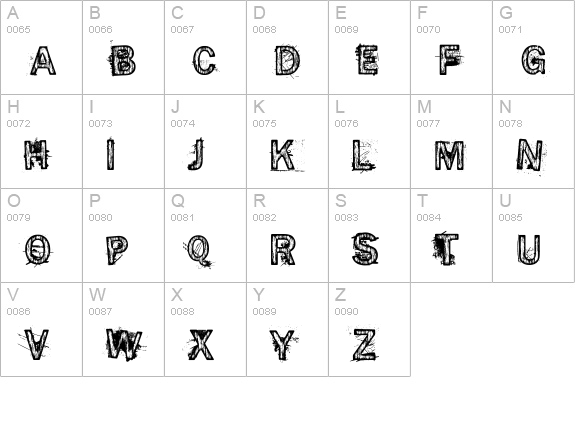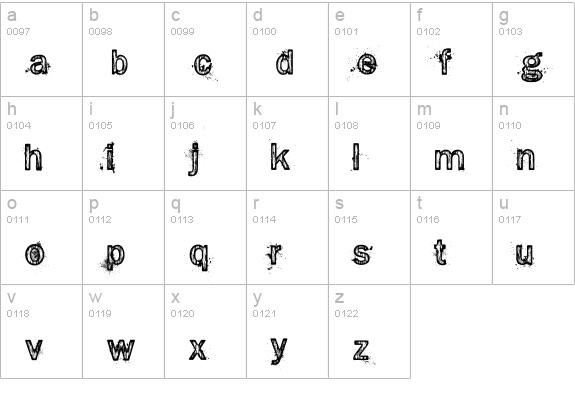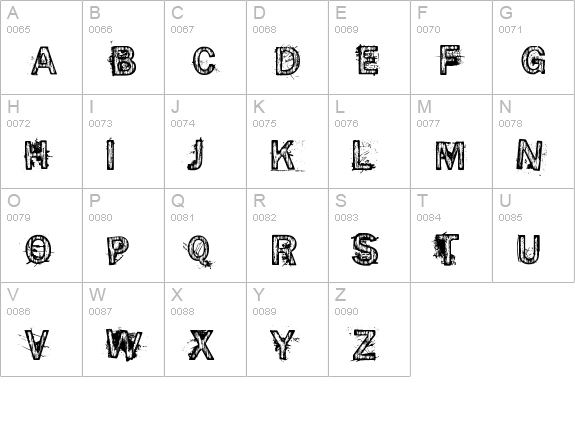
Splinter2 Font Details
Splinter2 font is a modern and edgy typeface that exudes a sense of sophistication and creativity. Its sharp lines and unique design make it perfect for adding a touch of boldness to any project. Whether you are working on a logo, website, or poster, Splinter2 font will help your text stand out and make a statement. What makes Splinter2 font even more appealing is that it is completely free to download. That's right, this stylish font is available for free at FontsMarket.com, making it accessible to anyone looking to add a contemporary flair to their designs. Don't miss out on the opportunity to enhance your projects with the striking elegance of Splinter2 font - download it now and let your creativity shine!